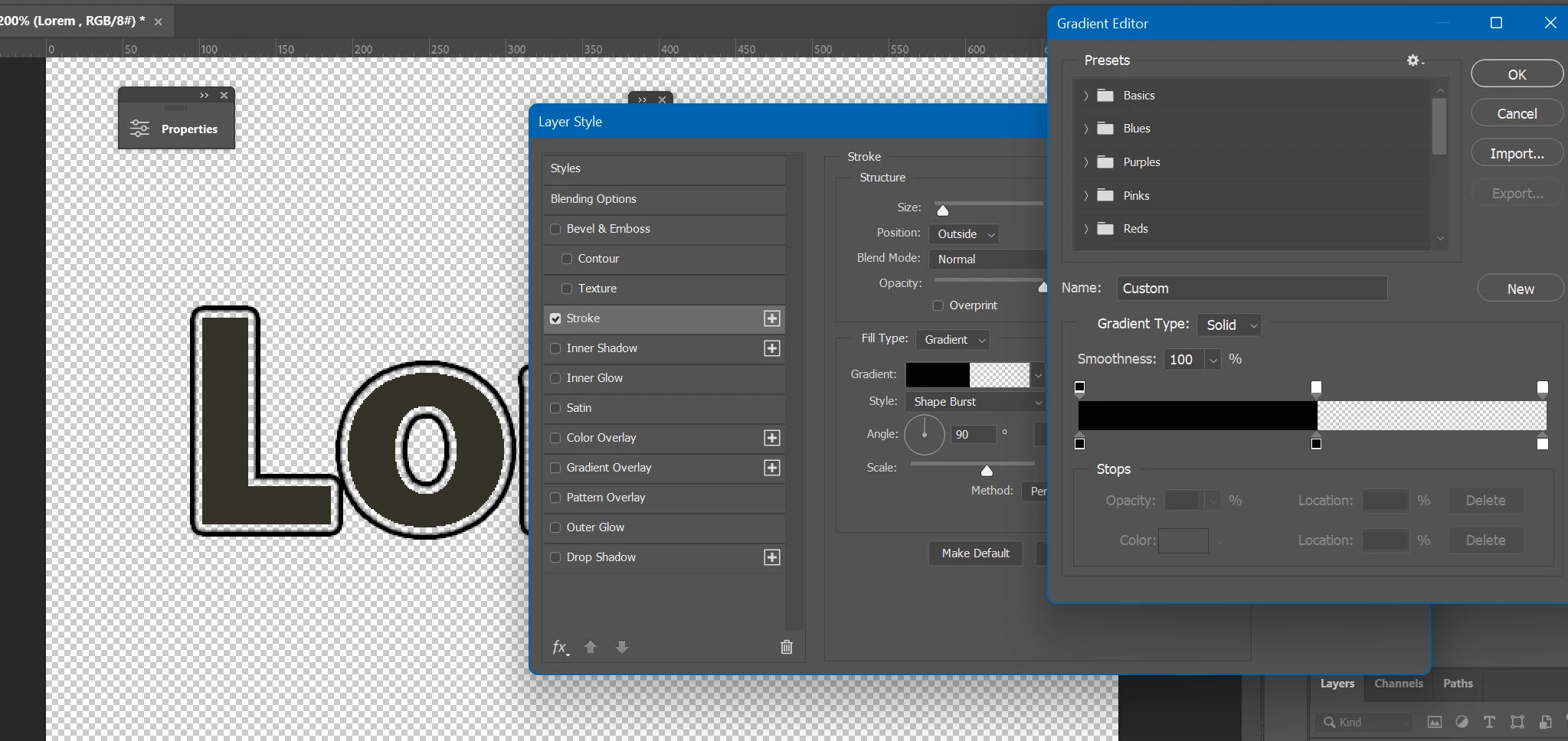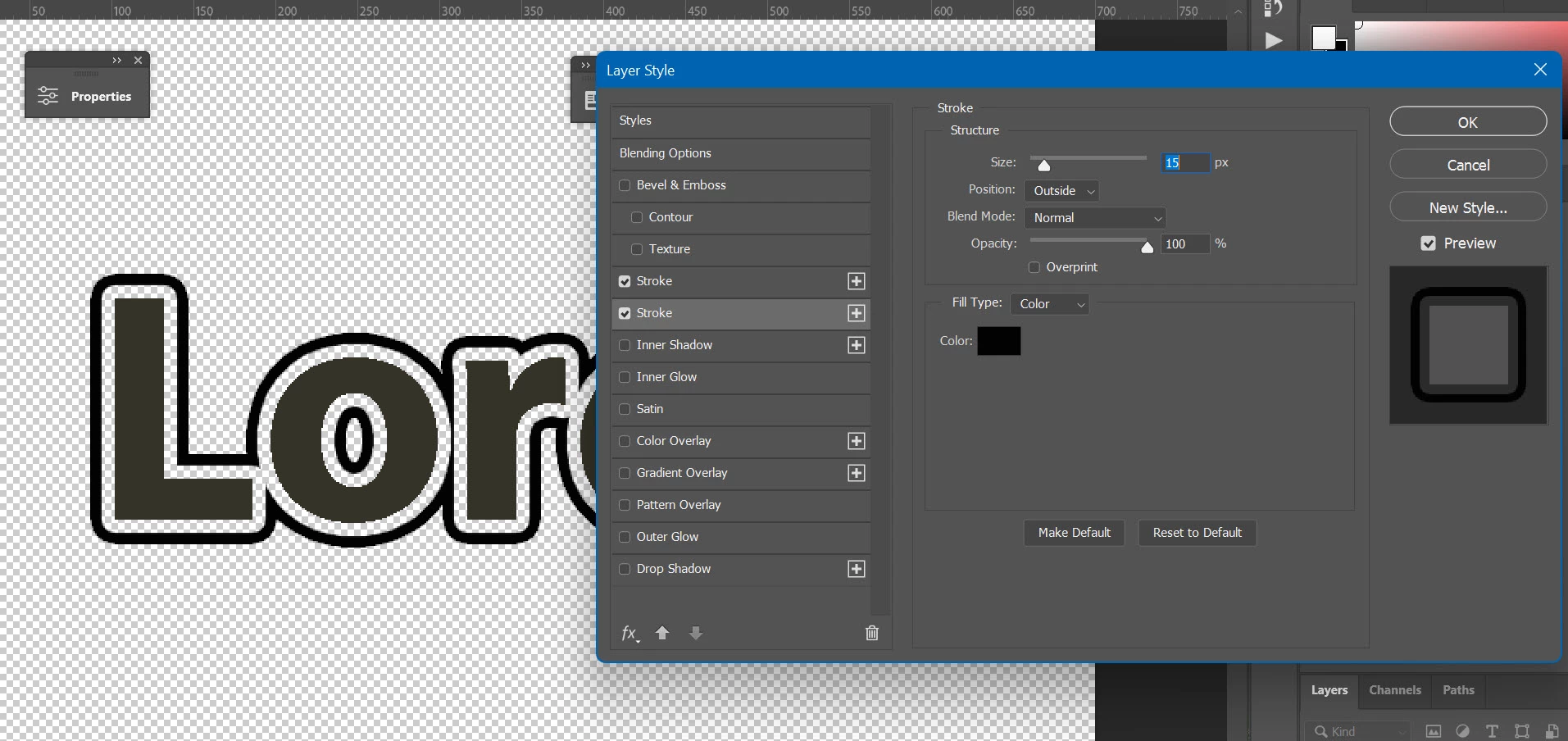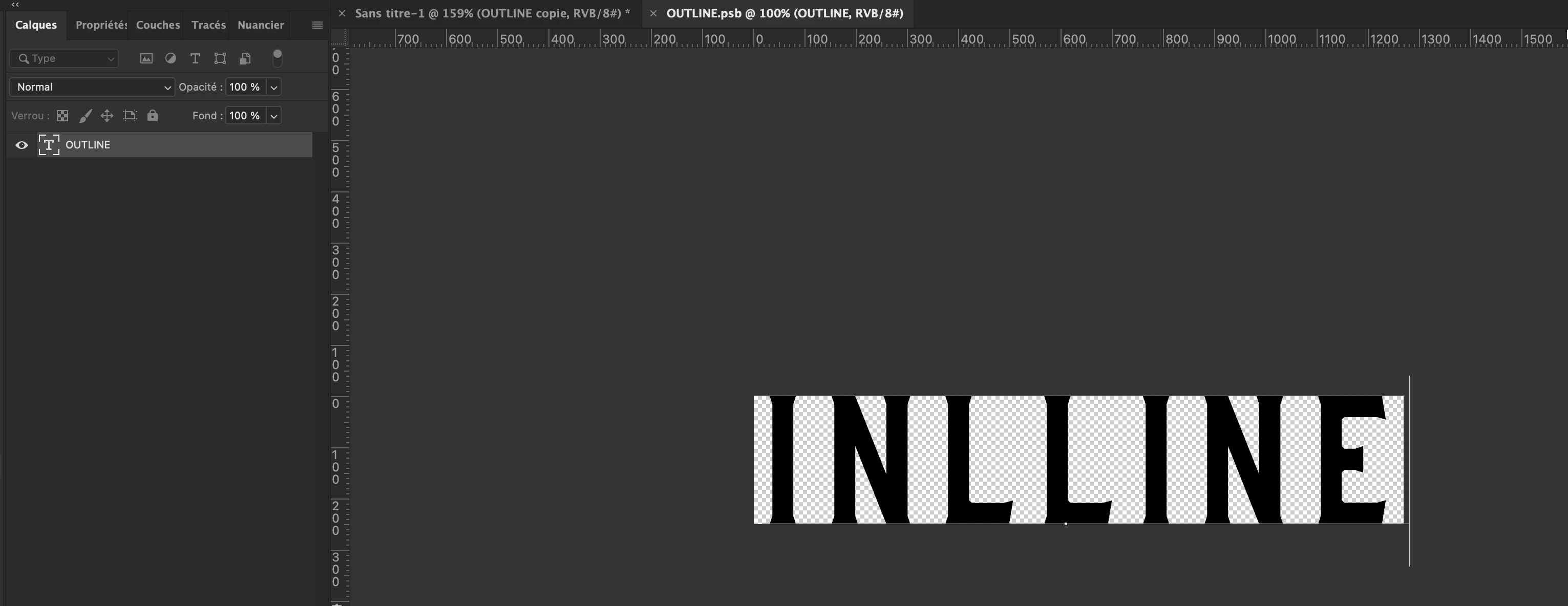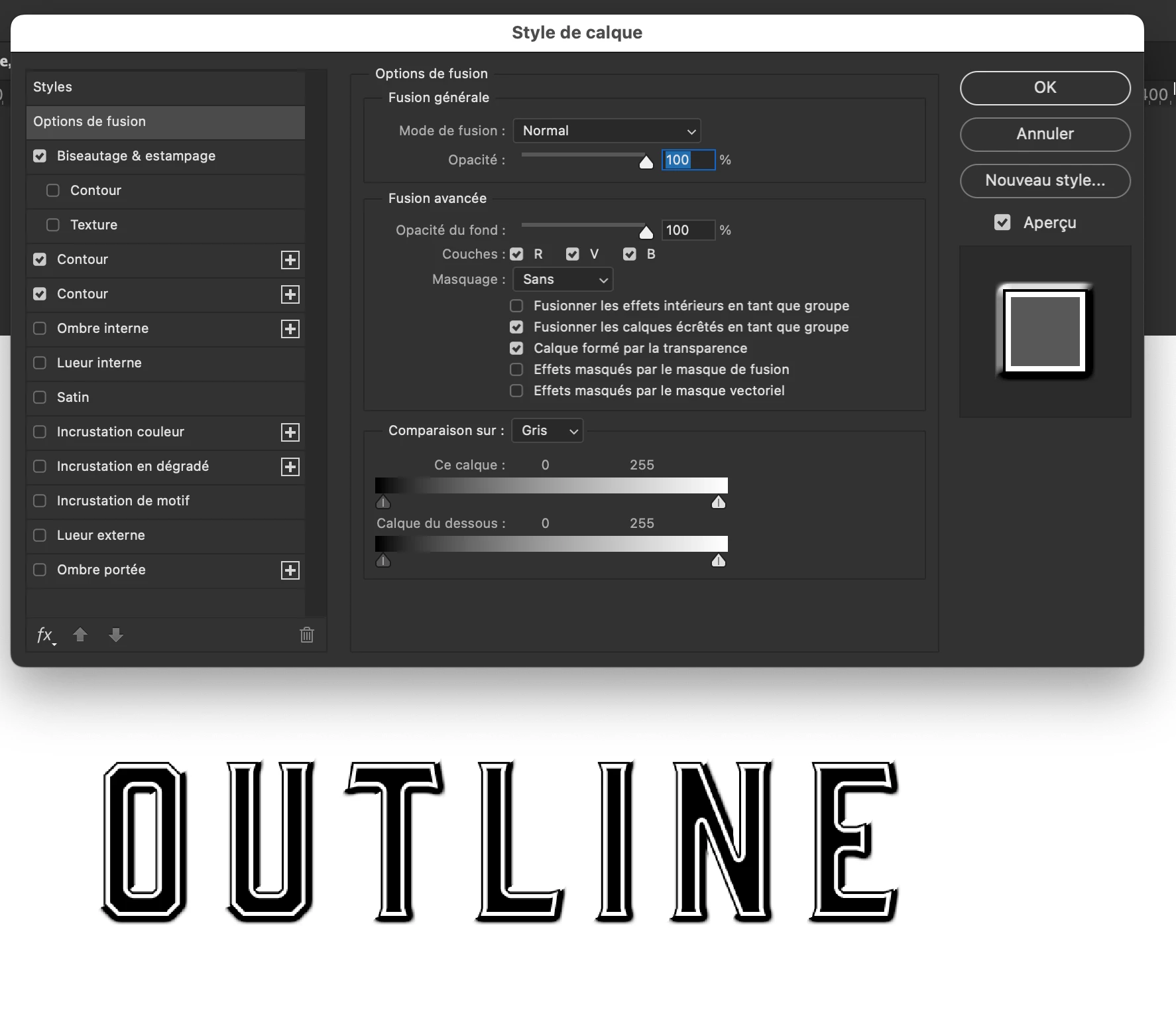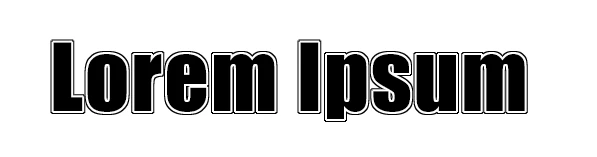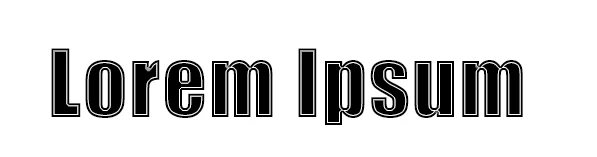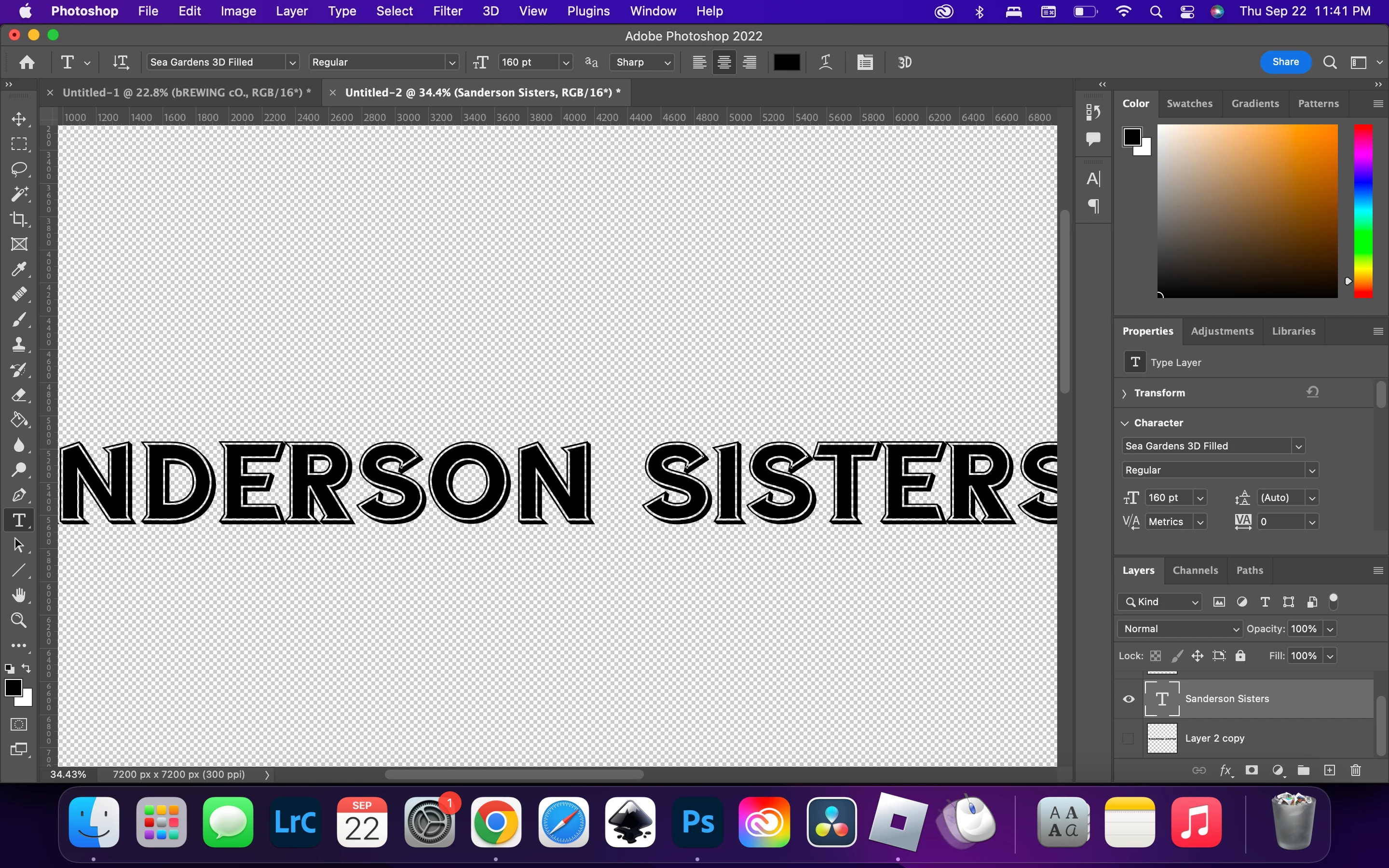
floating outline around text font
I'm curious out to do a floating outline around the text as it shows in the screenshot attatched. I found  font a really like however i cant figure out how to do the floating outline.
Ive tried  creating a "Stroke" layer and lowering opacity so im left with the outline which works, however when trying to resize the original layer to use as a fill, to creat the floating outline, it will just never fit properly, even by doing each letters individually.
You have two options using Layer > Layer Style effects. Both are using Stroke effect: either using Gradient for stroke or using Stroke > Color twice, please see screenshots.
When using Gradient you must manipulate stops and opacity.
When using double stroke set first stroke to 8px Color, Outside, for example, and Opacity to 0. In this case I set font to 200. Create new stroke by clkicking on plus sign on the right side of Stroke and set Outside, Color, 16px, for example, but this time move Opacity slider to 100%. Play with Tracking from Character panel for different spacing between characters.
You can set and Inside for the first Stroke effect but that will change font design what is not what I would like to do.
Hi following this post, Does anyone know how to do this font style in Photoshop? Or maybe a downloadable one?
@Charm Ayuzawa just make a copy of the type layer, move it below the original layer, change the colour to white, add a black stroke, move the layer to the appropriate position
It seems you want to create old style 3D efffect. Here is one tutorial, steps 3 and 4 explains how to create depth https://design.tutsplus.com/tutorials/create-a-3d-retro-text-effect-using-layer-styles-in-adobe-photoshop--cms-23118
You need somehwat different effect so tutorial will need some modifications, good luck!
the 3d effect isnt so much what im looking to so. just a solid floating outline.
You have two options using Layer > Layer Style effects. Both are using Stroke effect: either using Gradient for stroke or using Stroke > Color twice, please see screenshots.
When using Gradient you must manipulate stops and opacity.
When using double stroke set first stroke to 8px Color, Outside, for example, and Opacity to 0. In this case I set font to 200. Create new stroke by clkicking on plus sign on the right side of Stroke and set Outside, Color, 16px, for example, but this time move Opacity slider to 100%. Play with Tracking from Character panel for different spacing between characters.
You can set and Inside for the first Stroke effect but that will change font design what is not what I would like to do.
Is the floating outline part of the font? If so, then you might need to use the Font size dialog (or slider) to resize it rather than one of the other tools. Let us know how the floading outline was applied to the text.
the font with the floating outline, (see screenshot) was a premade font i downloaded. my question is, i found an entireley different font with no floating outline, but i would like to stick to the same style and create floating outline around the new font i have found, it doesnt currently have the floating outline on the new font.
Here is what I woukd do :
Type the text and convert the layer to smart object.
Copy this layer (in order to get the shadow)
Apply two strokes. One white and one larger black
Transform the lower layer to set the shadow.
Sinceit is a duplicated smart object you can edit it to change the text
The text changes will appear on both layer
And just for fun you could also instead of color stroke, choose Pattern for other creative purposes…